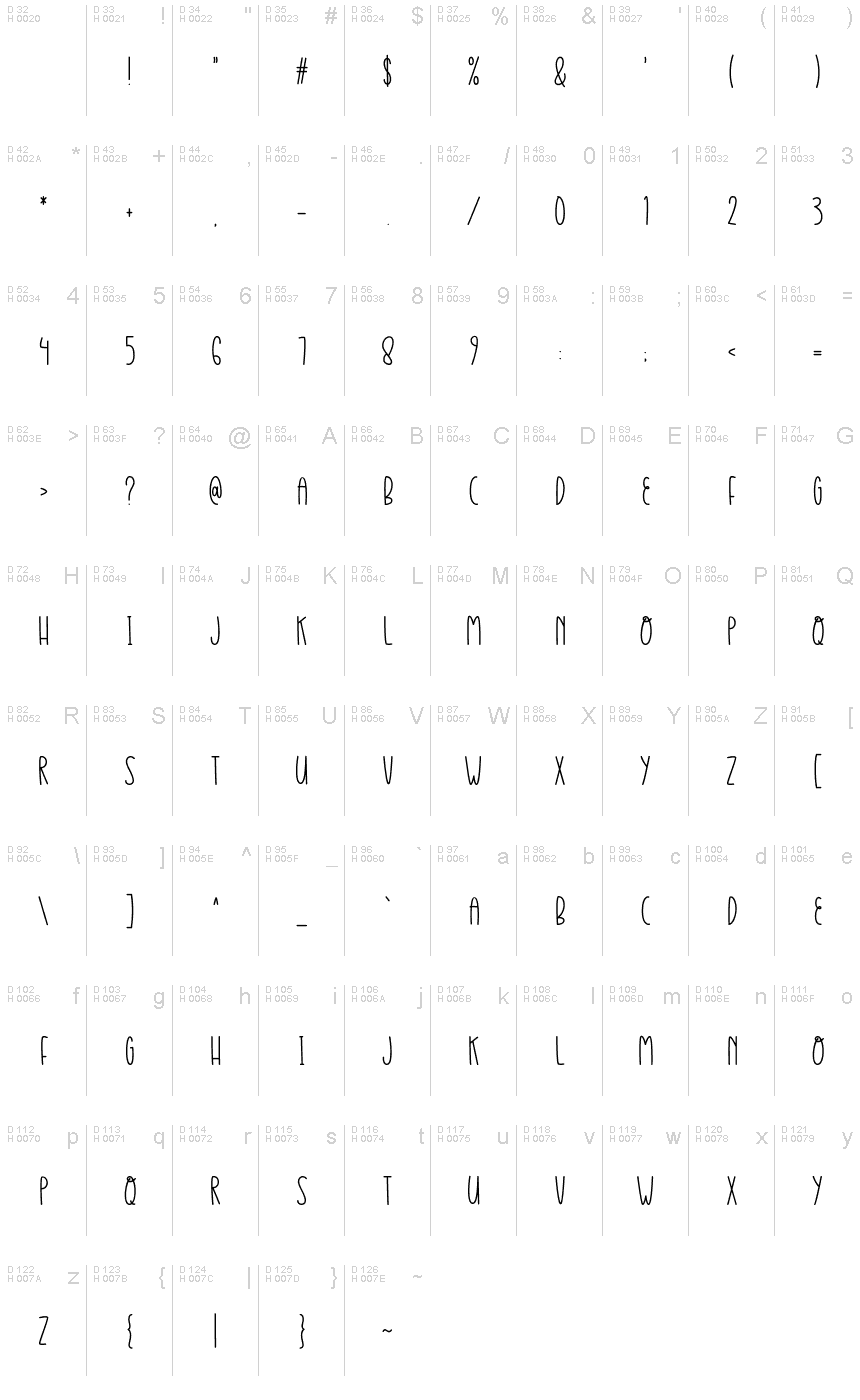
White Farmhouse
Create a unique look with Letter Art Studio's White Farmhouse font! This quirky handwritten font with its light weight and narrow width makes it perfect for crafting projects, wedding invitations, or logos that need an extra special touch.